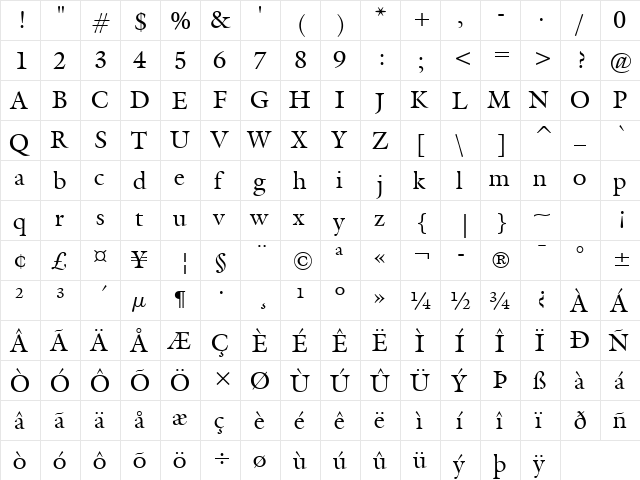
Galliard BT Roman
Design Context for Galliard BT Typeface
Galliard BT offers clean, dependable letterforms without strong stylistic allegiance, making it a practical choice for designers who need flexibility.